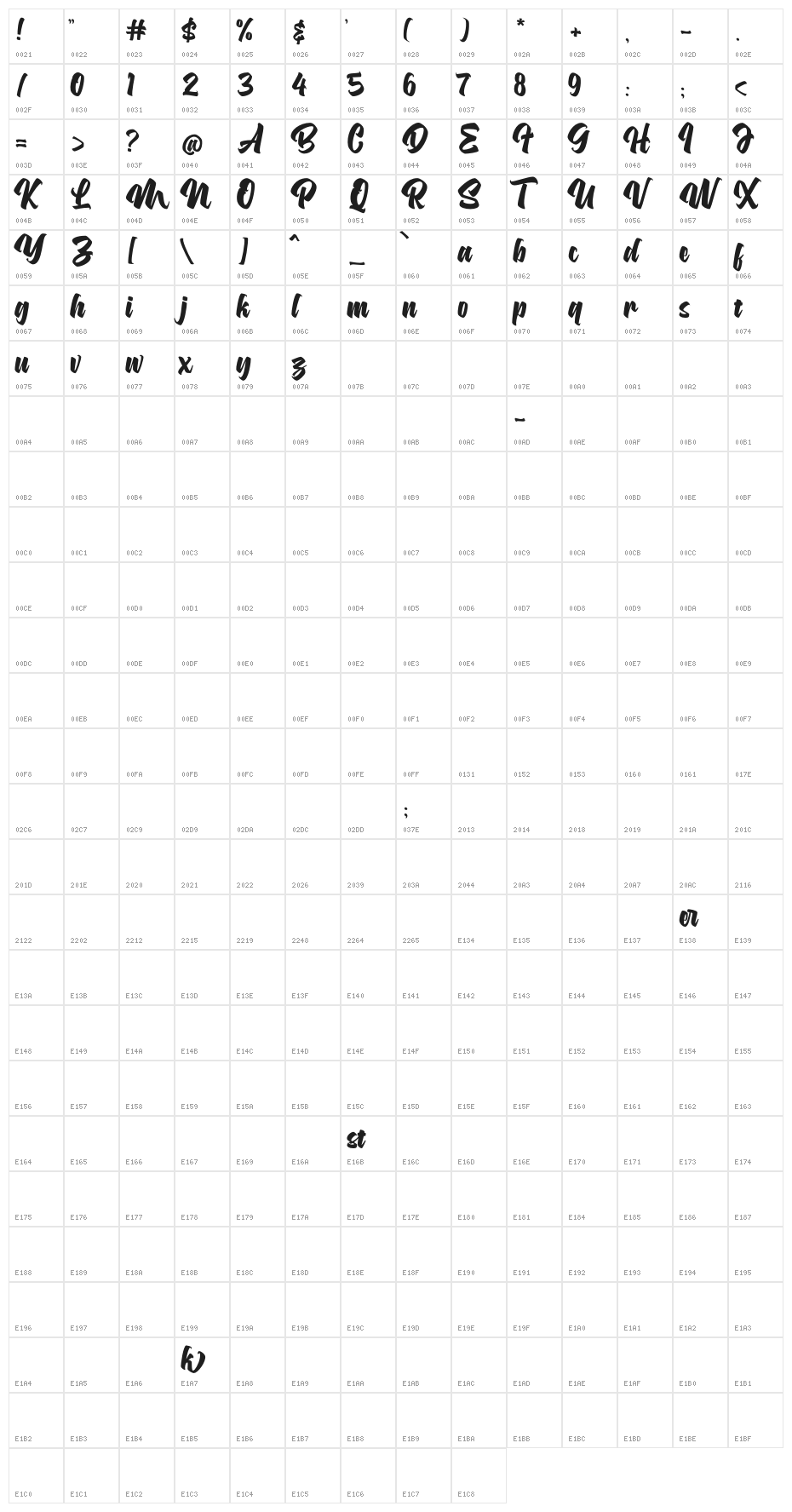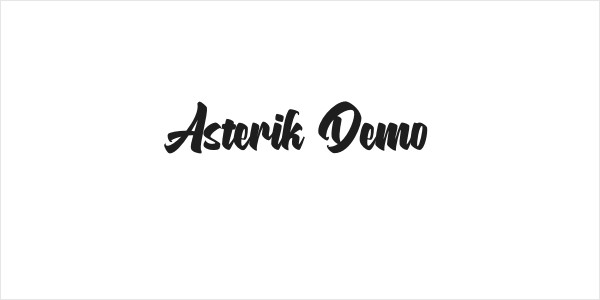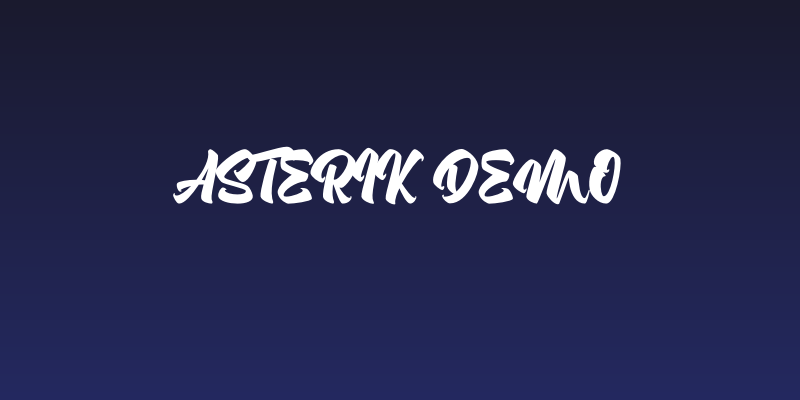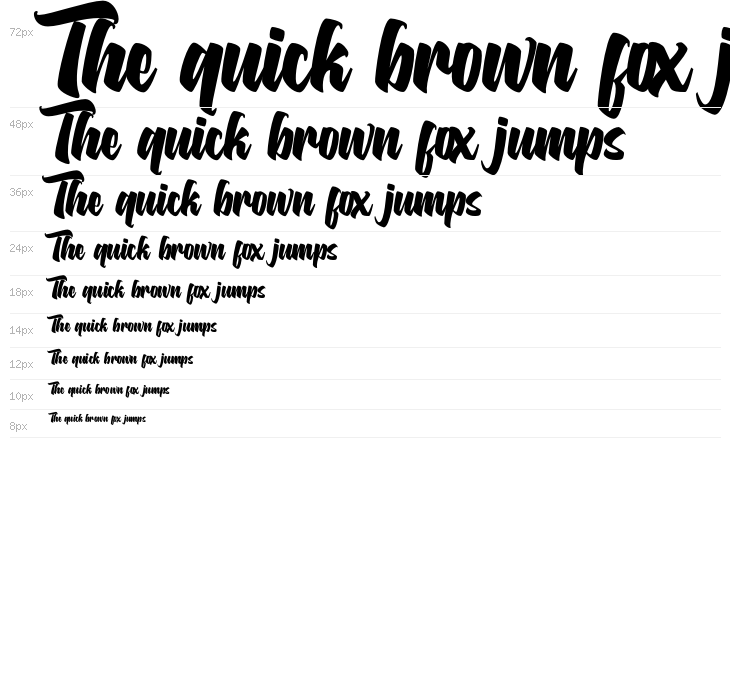
Asterik Demo Font
Asterik Demo Description
This font features a bold and dynamic script style with a strong presence. The characters are connected in a fluid manner, giving it a handwritten appearance. The strokes are thick and consistent, providing a sense of energy and movement. The uppercase letters are slightly larger and more pronounced, while the lowercase letters maintain a cohesive flow. The numbers and special characters are designed to match the overall aesthetic, ensuring uniformity across all elements. This font is ideal for creating impactful designs that require a personal touch.